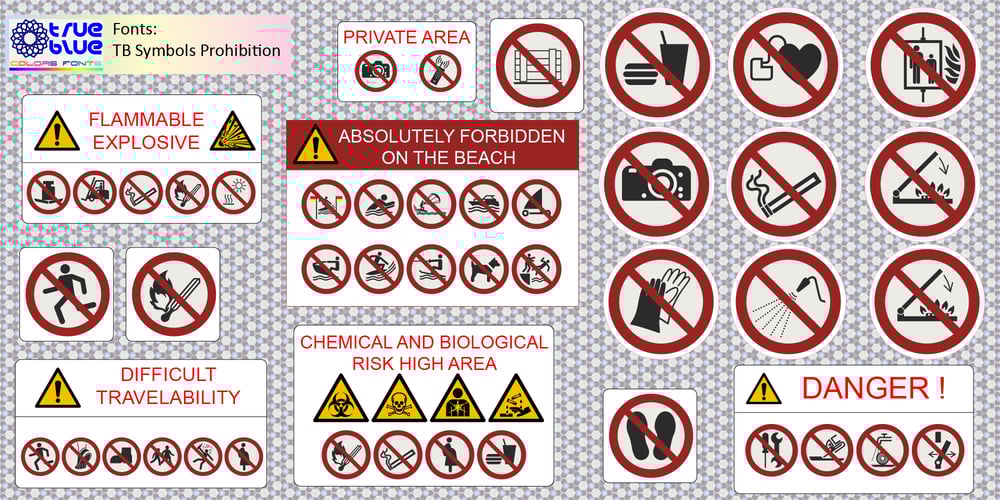
TB Symbols Color Font Family was designed by Gianni Marcolongo and published by TrueBlue. TB Symbols Color contains 4 styles and family package options. Complete set of internationally standardized attention graphic symbols in color, meticulously designed for flawless representation. Seamlessly compatible with popular graphic design software such as Illustrator, Photoshop, Pixelmator, and more. Ideal for creating technical documents, product specifications, operating instructions, safety documents, alerts, labels, signage, packaging, and any situation requiring compliant symbols in the correct colors.